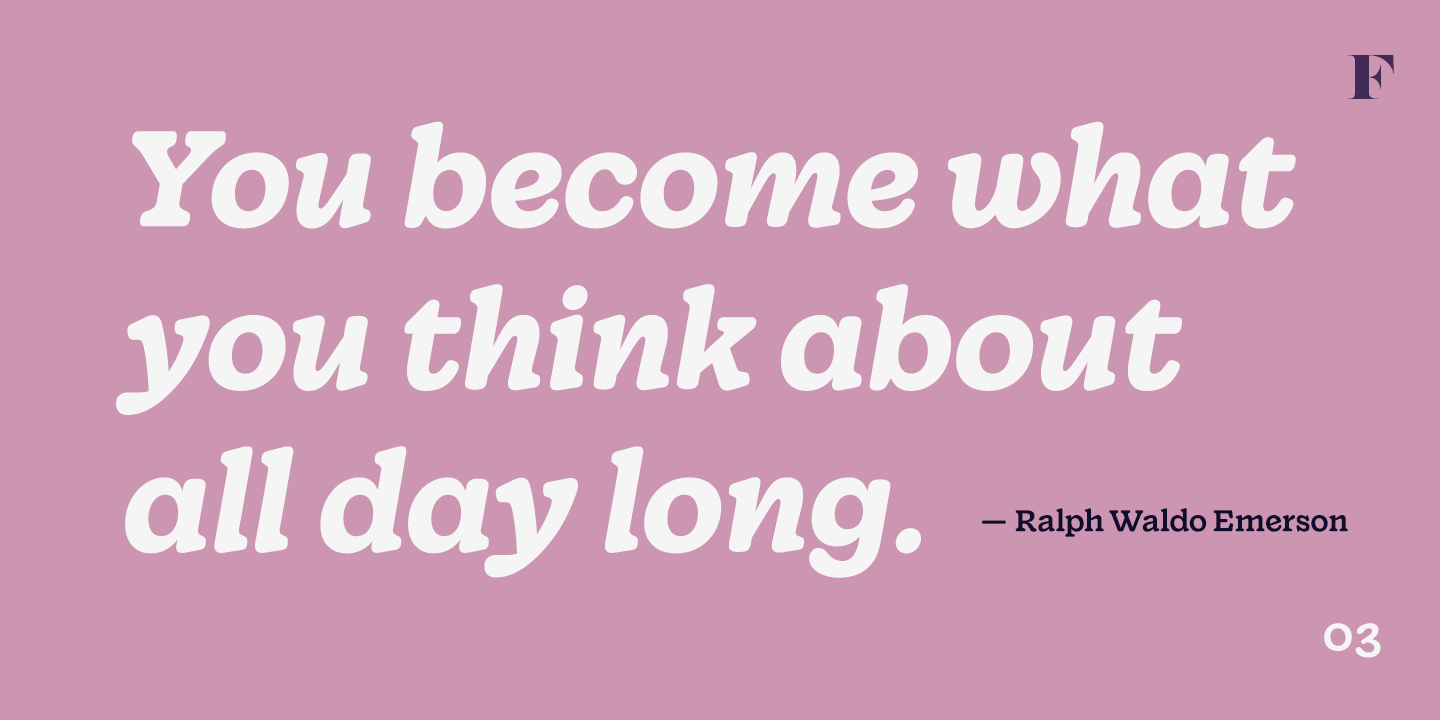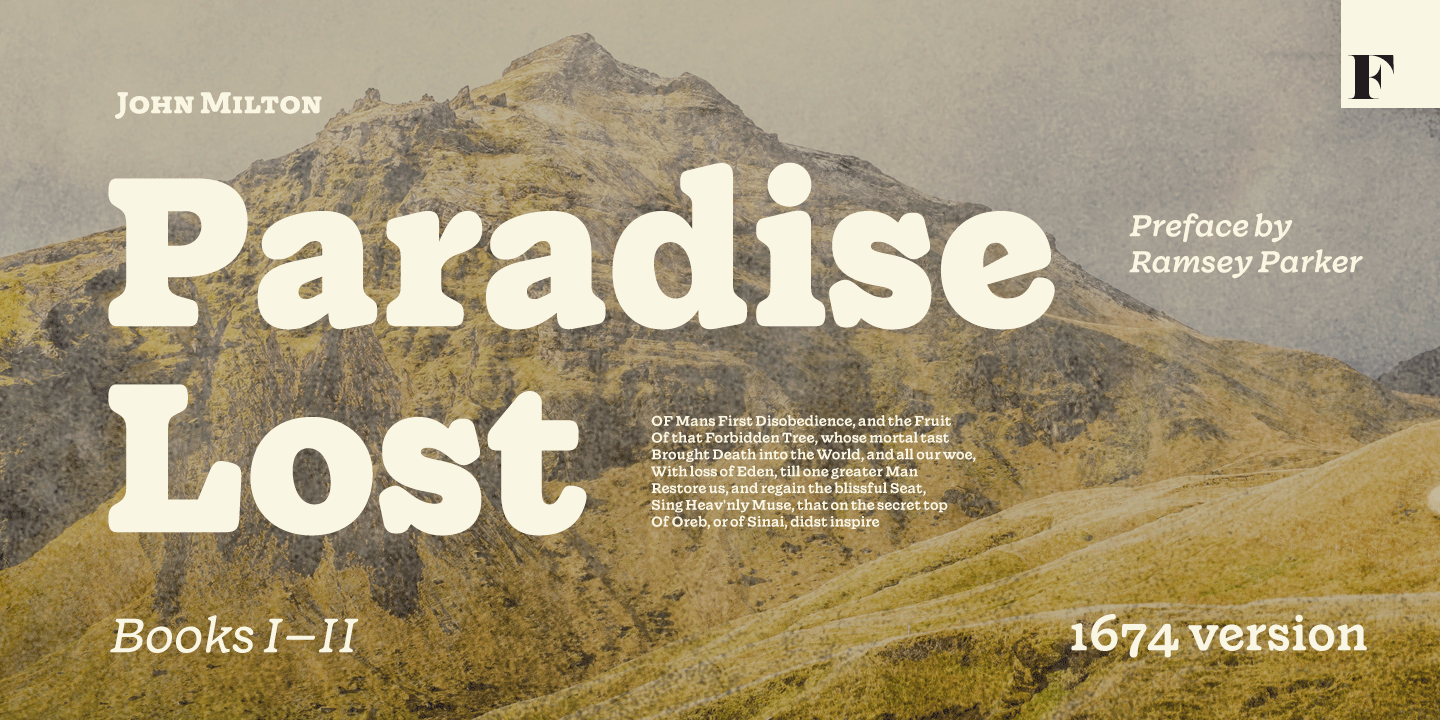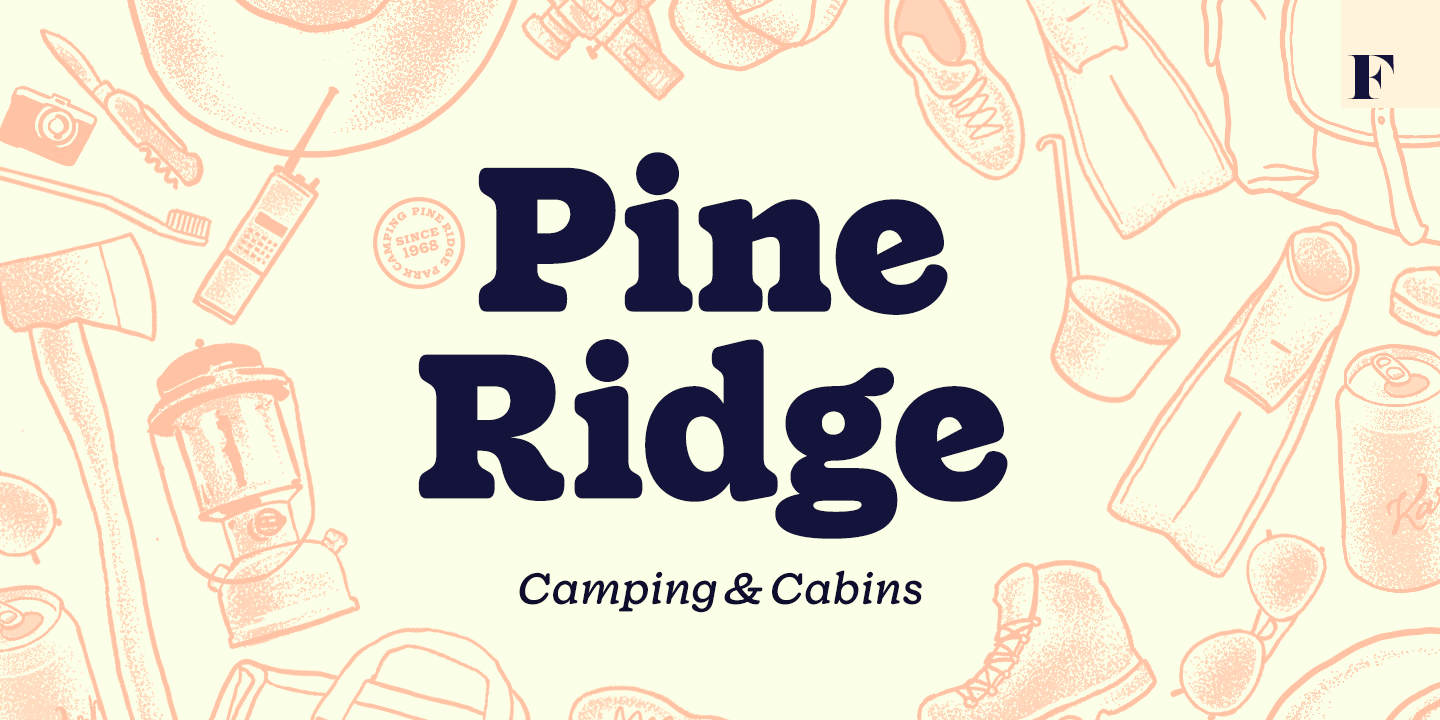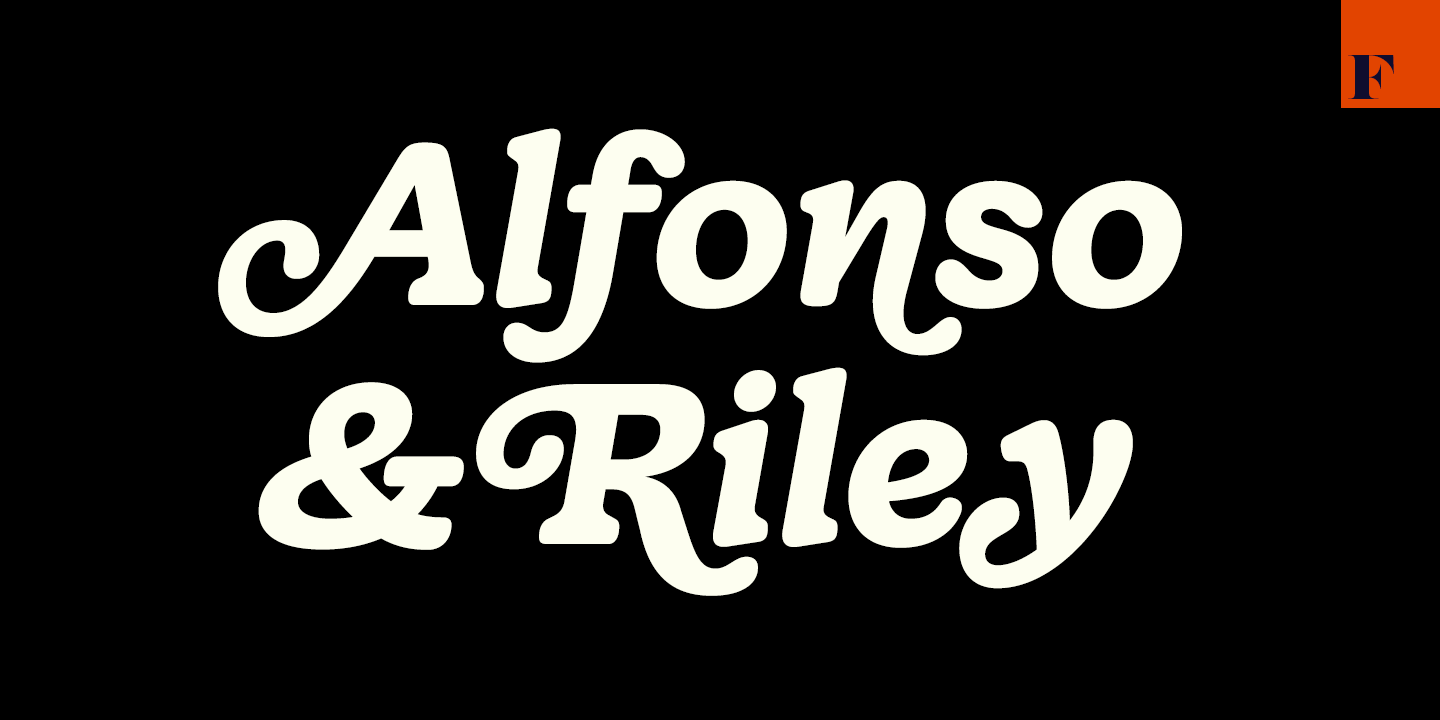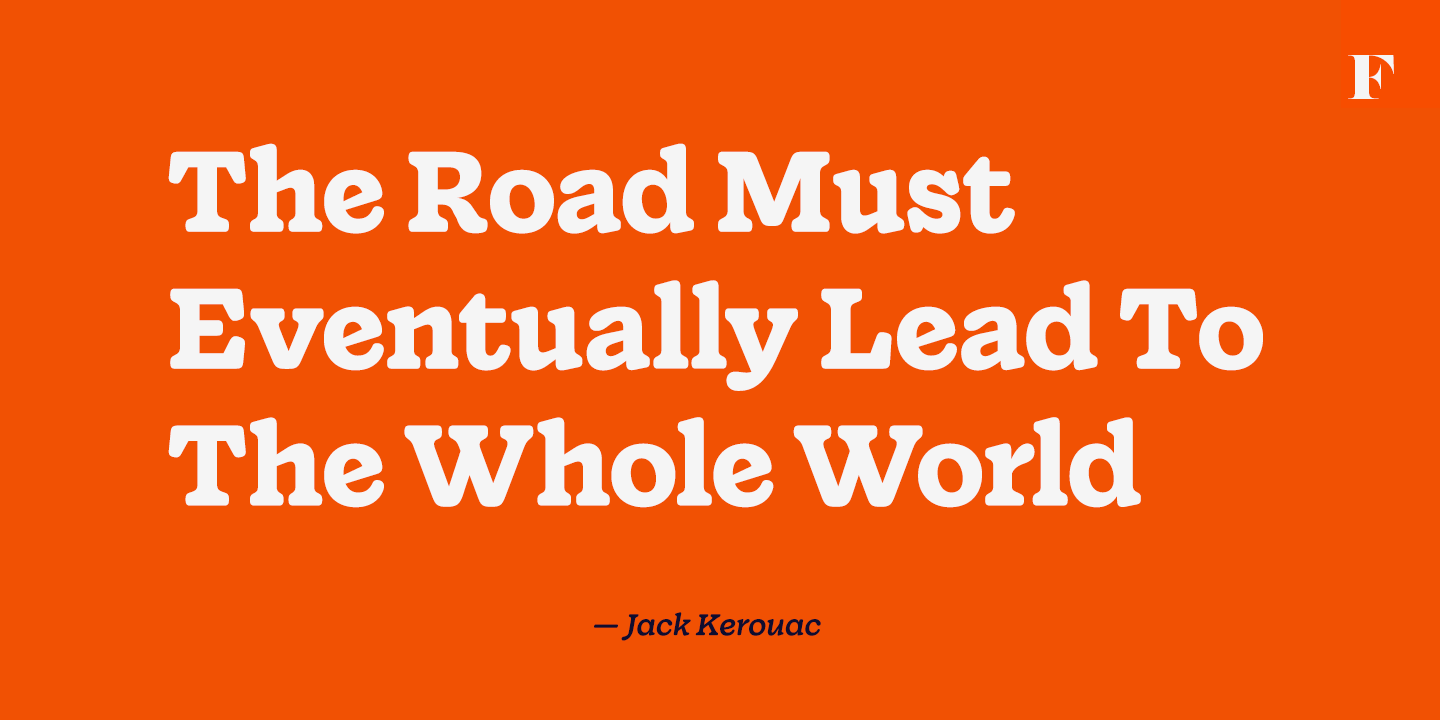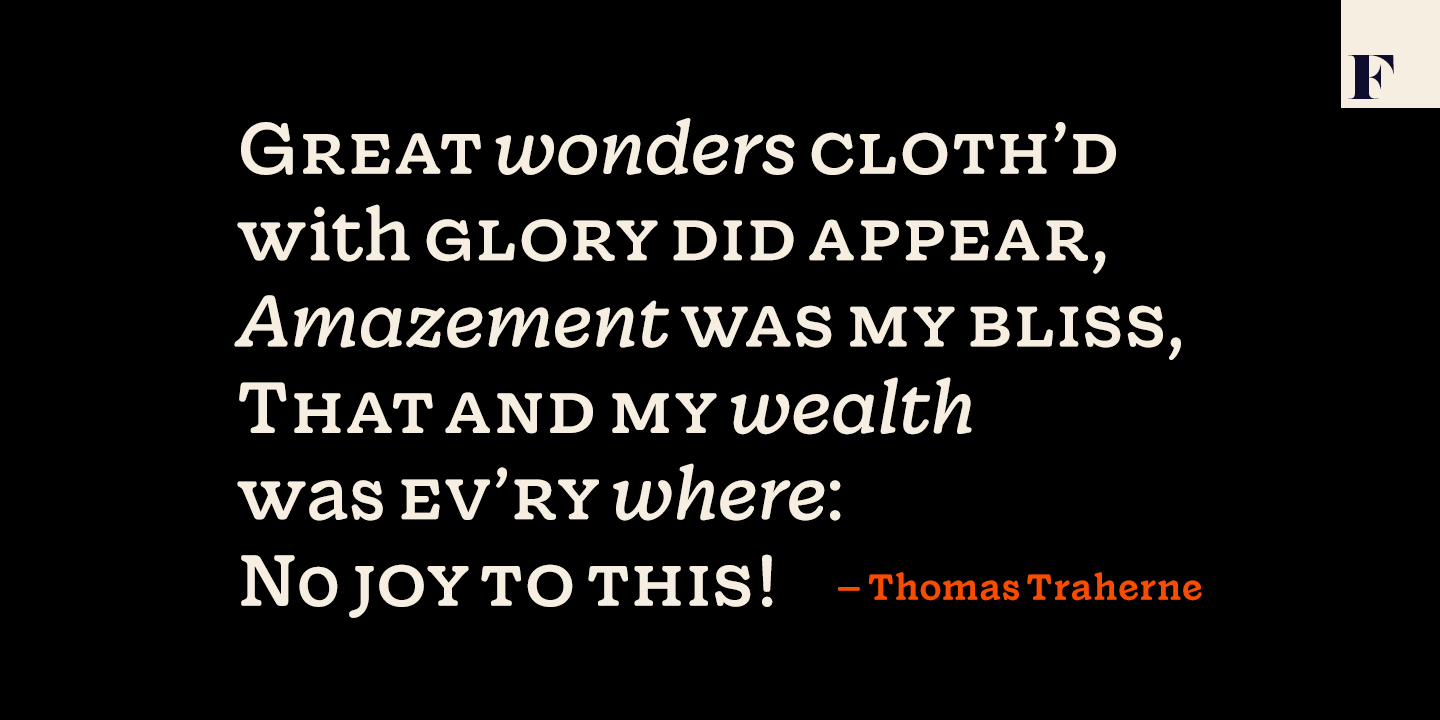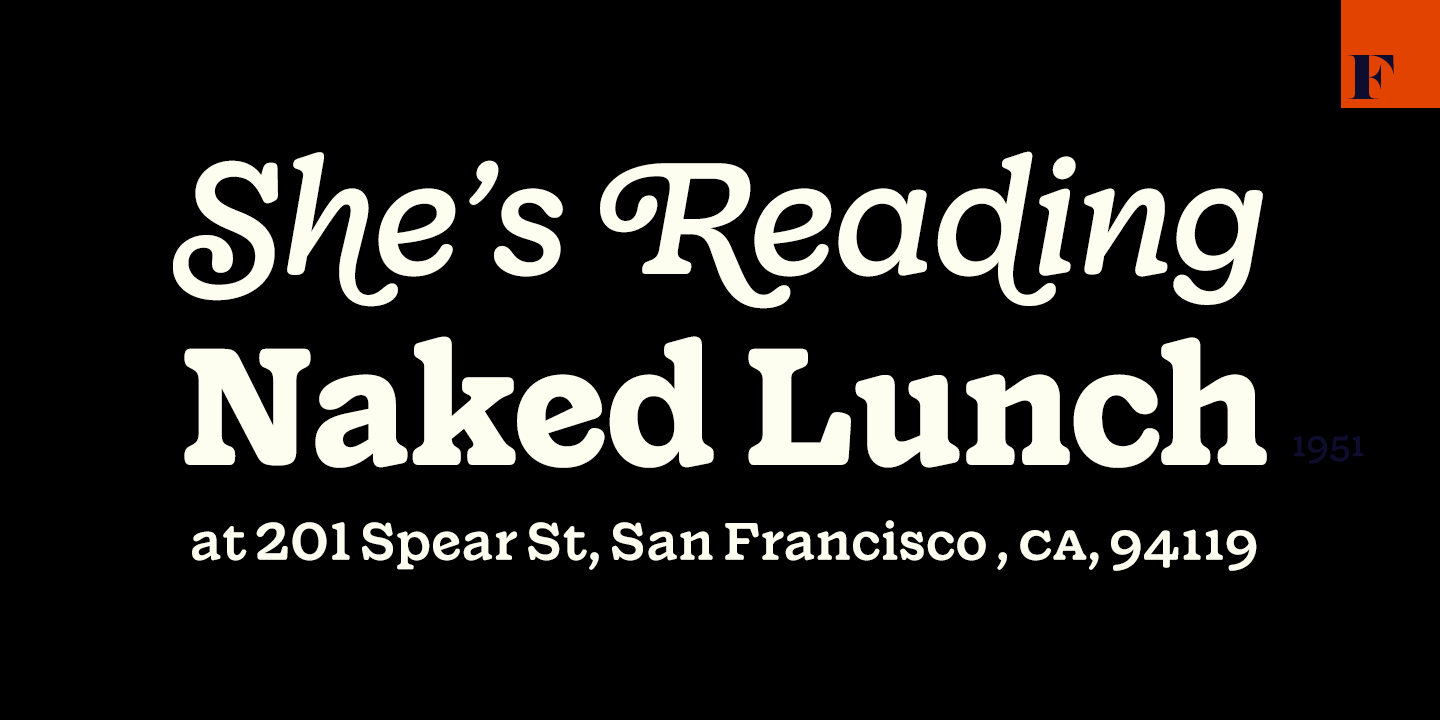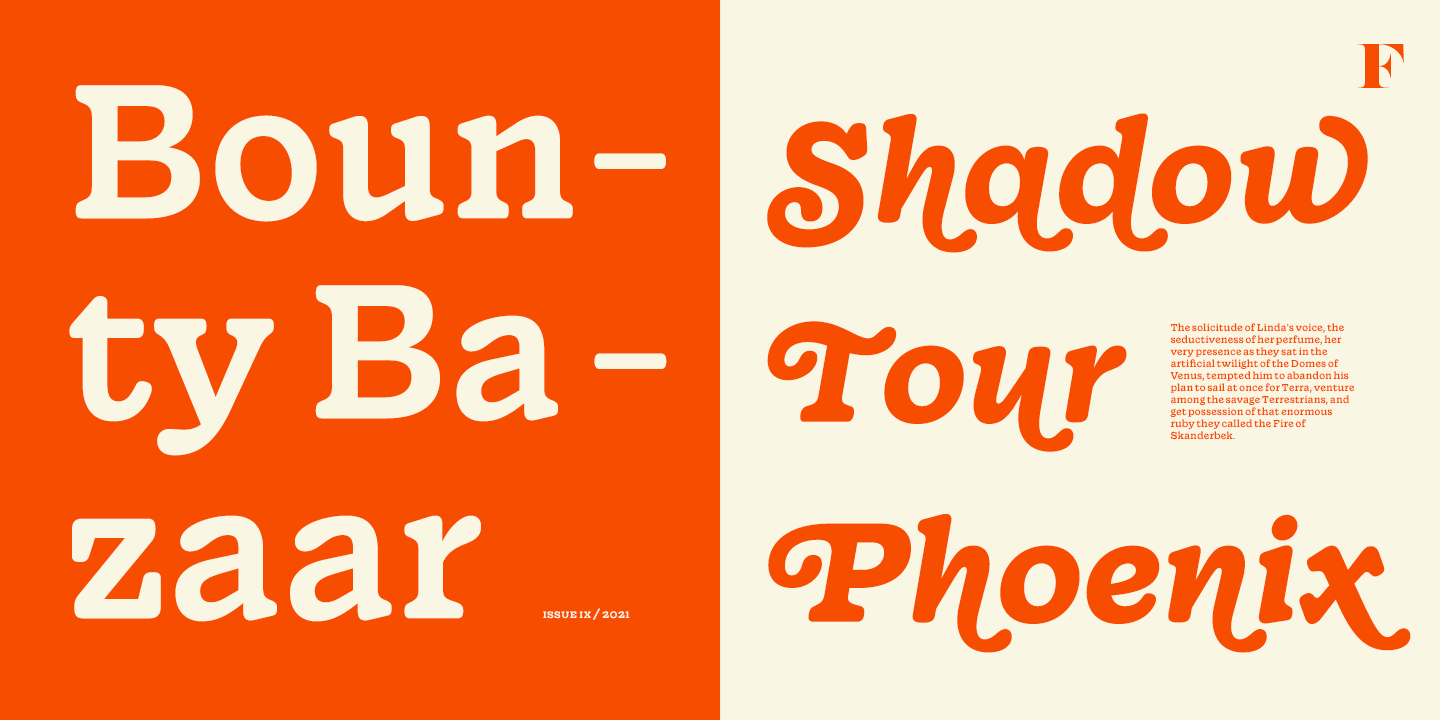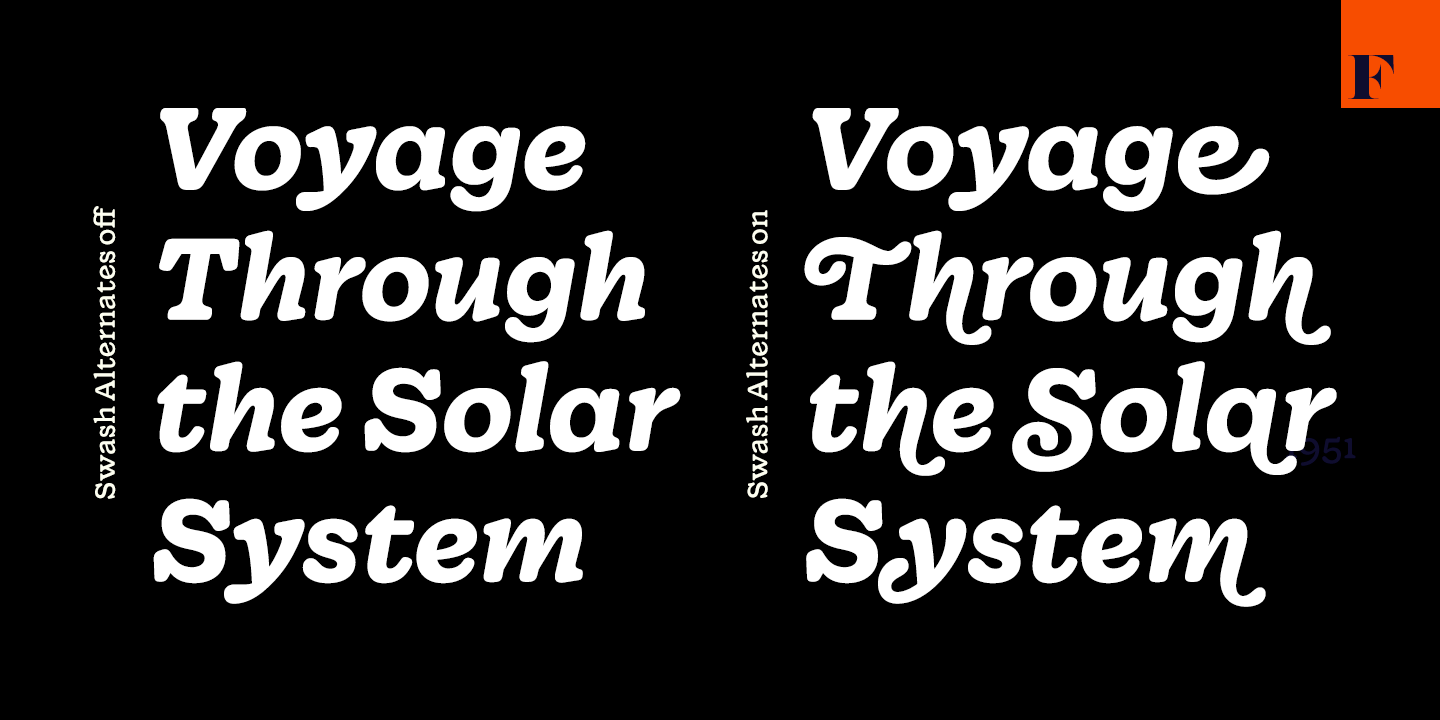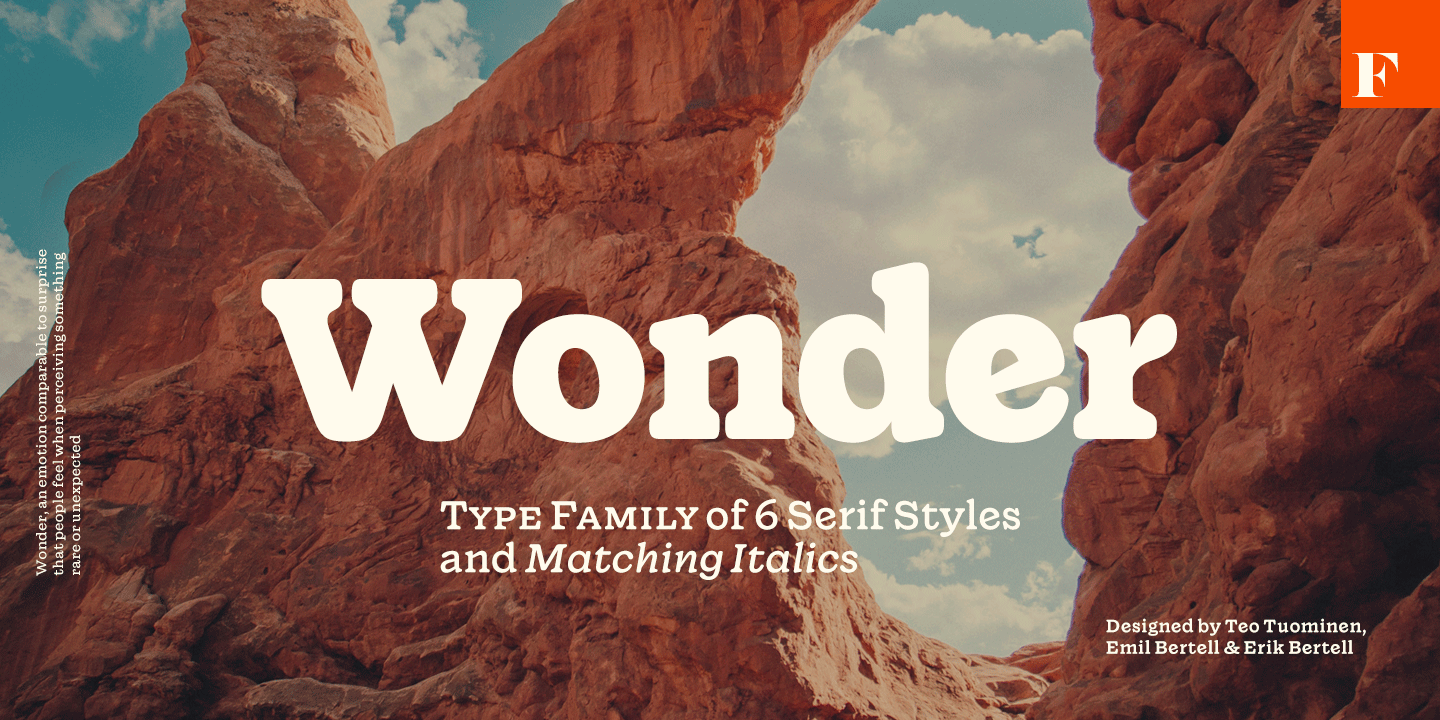
Wonder Complete
About Wonder Complete
Do you sometimes have an appetite for a bit more wholesome typography? Do you find the ubiquitous sans serifs too industrial and bland in taste? Opt for something more organic: Wonder – a rootsy yet contemporary type family. With a deliciously juicy approach…